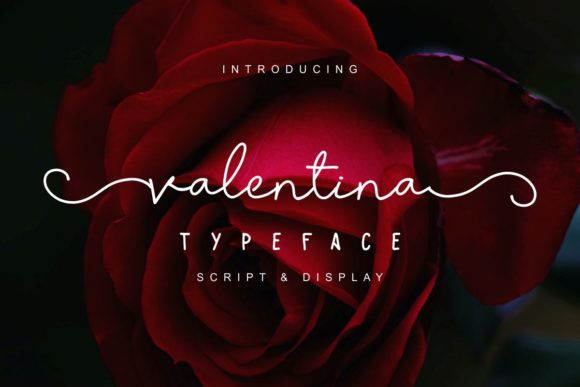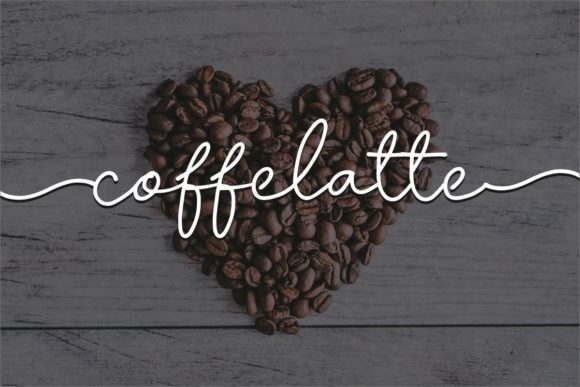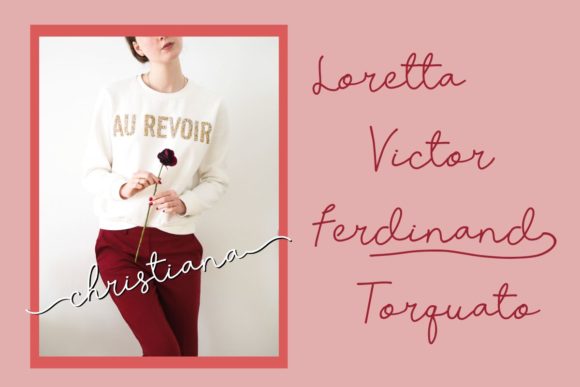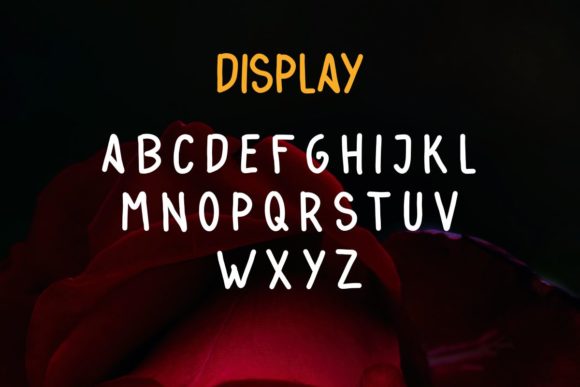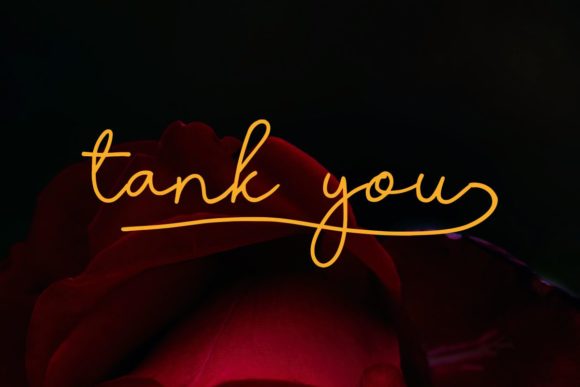
Valentina Font
About Valentina Font
Introducing “Valentina,” a spectacular duo font consisting of a script and display style. With characters that dance along the baseline, Valentina exudes a sense of elegance and playfulness that is truly captivating. This versatile font is designed to elevate a wide range of designs, making them stand out and come alive.
The script style of Valentina is fluid and graceful, with sweeping strokes and intricate details. It adds a touch of sophistication and charm to any project, whether it’s a wedding invitation, branding materials, packaging, or social media graphics. The script font is perfect for conveying a sense of elegance and personalization.
The display style of Valentina is bold and eye-catching, with strong and confident letterforms. It commands attention and creates a striking visual impact. This style is ideal for headlines, logos, signage, posters, and any design that requires a bold statement.
The beauty of Valentina lies not only in its individual styles but also in its ability to work harmoniously together. The script and display fonts complement each other perfectly, allowing you to create stunning compositions and combinations. Use the script font for the main text and the display font for titles or accents to create a visually captivating design.
Valentina is incredibly versatile and can be adapted to various design themes and aesthetics. It suits both modern and classic styles, as well as romantic and whimsical concepts. Whether you’re working on a luxurious branding project, an elegant wedding theme, or a playful illustration, Valentina will add that extra touch of magic.
With Valentina, your creative ideas will come to life. The dancing baseline and beautifully crafted characters bring a sense of movement and energy to your designs. Each letter is carefully designed to ensure a seamless flow and cohesive appearance. Whether used individually or in combination, Valentina will captivate and engage your audience.
As a designer, you’ll appreciate the flexibility and versatility of Valentina. It offers a wide range of glyphs, ligatures, and alternate characters, allowing you to customize and personalize your designs. This font empowers you to create unique and memorable compositions that reflect your artistic vision.
Unleash your creativity and let Valentina be your companion in designing remarkable projects. Whether it’s an elegant invitation, a striking logo, or a captivating display, Valentina will elevate your designs to the highest levels. Embrace the beauty and versatility of Valentina and bring your creative ideas to life.